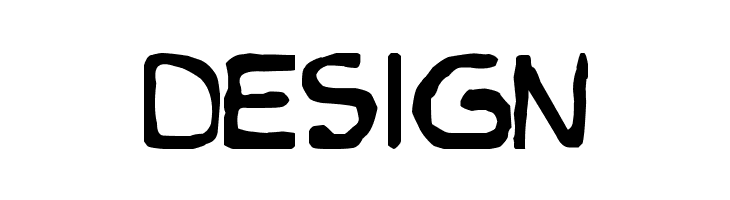
Halfshell Hero Academy Italic Font
- Font: Halfshell Hero Academy Italic
( Fonts by Press Gang Studios - Andeh Pinkard - www.pressgang-studios.com )
A bold, playful handwritten font with a dynamic and informal style.